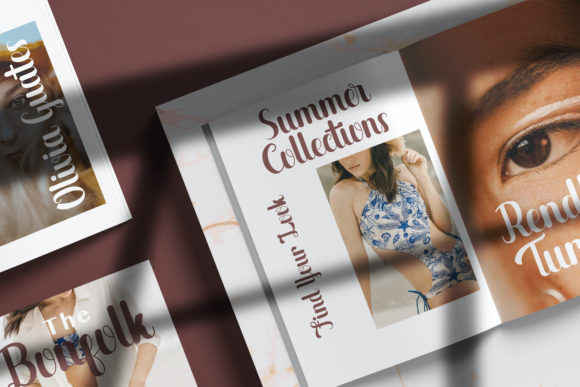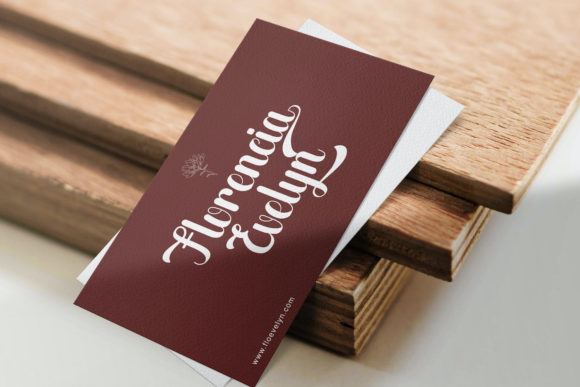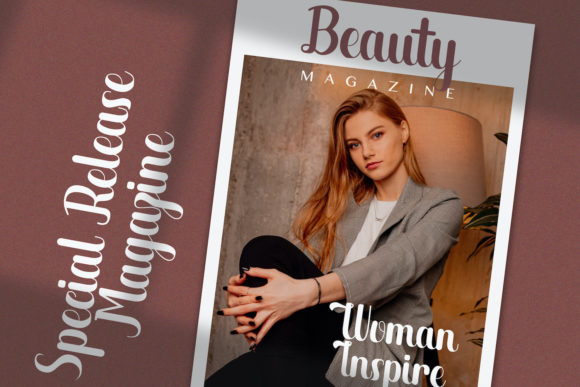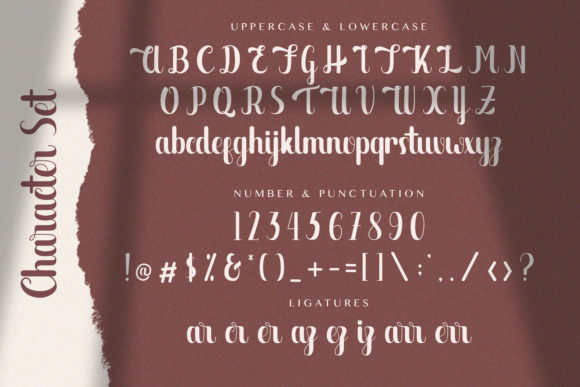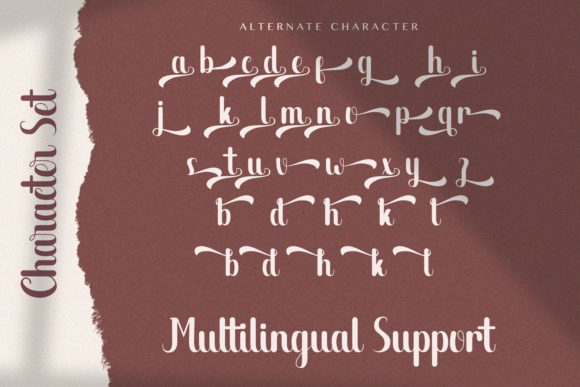
About The Migare Font
The Migare is a flowing handwritten font, described by an elegant touch, perfect for your favorite projects. Fall in love with its incredibly distinct and timeless style and use it to create spectacular designs!